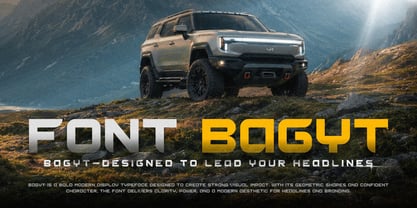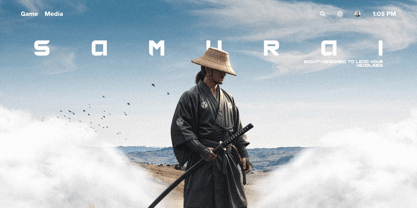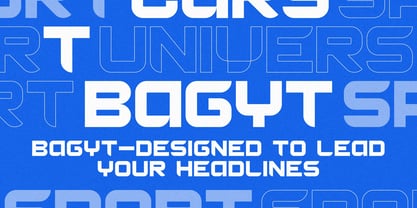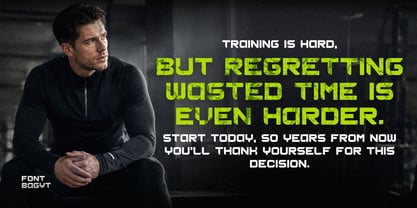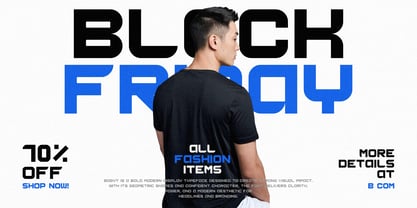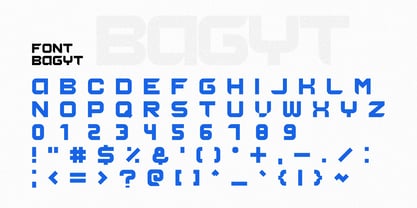
Bagyt
by Era Ken
The Bagyt Font Family was designed by Yerkin Kengenov and published by Era Ken. Bagyt contains 1 styles. More about this family
Bagyt is a modern display typeface created to deliver strong visual presence and distinctive typographic style. Its bold forms, geometric construction, and confident rhythm make every word appear powerful and memorable.
The typeface is designed primarily for large-scale typography, where it can fully express its visual character. Display typefaces are commonly used to attract attention, establish hierarchy, and create a strong visual identity in design compositions.
Bagyt works perfectly in modern graphic design where clarity and impact are essential. The font combines simplicity with strong visual energy, allowing designers to create expressive headlines, striking logos, and eye-catching visual layouts.